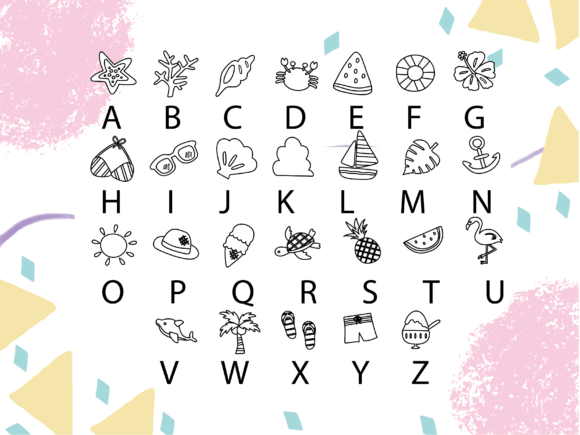
Get Ready for a Beachy Keen Design Moment
Who hasn’t stared at a blank computer screen, waiting for inspiration to strike? The cursor blinks, and suddenly, the perfect idea pops into your head – a beach-themed design project! You can almost smell the salty air and hear the sound of seagulls. This is the moment when creativity knows no bounds, and your imagination runs wild.
Enter Beach Fun Font, the ultimate companion for designers looking to bring a slice of beachy fun to their projects. With its playful illustrations of palm trees, sunglasses, and ice cream cones, this font is the perfect way to add a dash of whimsy to your designs. Whether you’re creating a flyer for a beach volleyball tournament or a meme about getting sand in your swimsuit, Beach Fun Font is a total lifesaver.
Beach Fun Font Key Features
- Font Family: Beach Fun Font is a custom-designed font, perfect for creating a playful and beach-inspired atmosphere.
- Unique Characteristics: Features a unique blend of handwritten and beach-inspired elements, making it perfect for creating eye-catching titles and headings.
Designer Review: Beach Fun Font
Overall, I think the Beach Fun Font has some great qualities, but also some areas where it falls short. Here’s my honest review:
- Fun and playful vibe: The Beach Fun Font is perfect for creating a carefree and fun atmosphere in your designs.
- Customizable: It comes in a range of weights and styles, making it easy to adjust to fit your design needs.
- Legible: Despite its playful nature, the font is still easy to read, even at smaller sizes.
- Limited versatility: While the font is great for beach-themed designs, it may not be the best choice for more serious or professional projects.
- Overuse: Its playful nature can make it feel gimmicky if overused or used in a way that’s too on-the-nose.
- No language support: Unfortunately, the font doesn’t support many languages, which may limit its use in multilingual designs.
Overall, I think the Beach Fun Font is a fun and creative choice for the right projects. While it has some limitations, its playful vibe and customization options make it a great addition to any designer’s toolkit.
The Beach Fun Font is ideal for summer-themed projects, such as:
- Beach party invitations
- Summer vacation posters
- Water sports promotional materials
For optimal results, pair the Beach Fun Font with bright, beach-inspired colors and playful graphics.